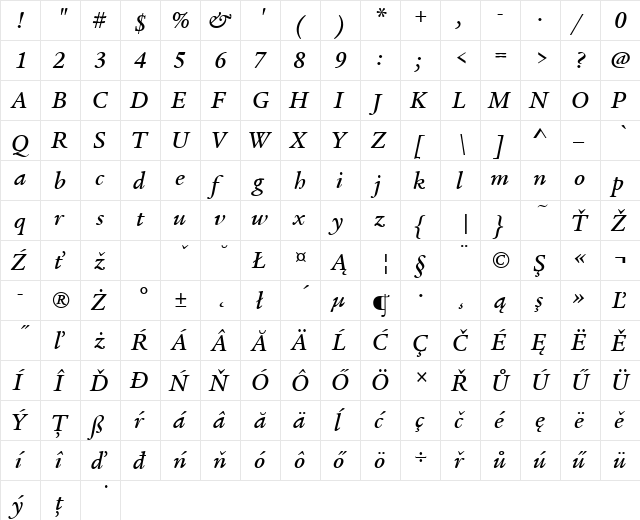
LegacySerItcTEEMed Italic
Design Context for LegacySerItcTEEMed Typeface
LegacySerItcTEEMed takes a measured approach to typography — its balanced proportions and neutral character make it a reliable workhorse for both digital and print work. Its italic angle brings a sense of urgency and motion to the letterforms.
Pro Tip: Try LegacySerItcTEEMed for annotation and caption copy alongside an upright companion — the contrast in angle creates a dynamic but ordered typographic system.